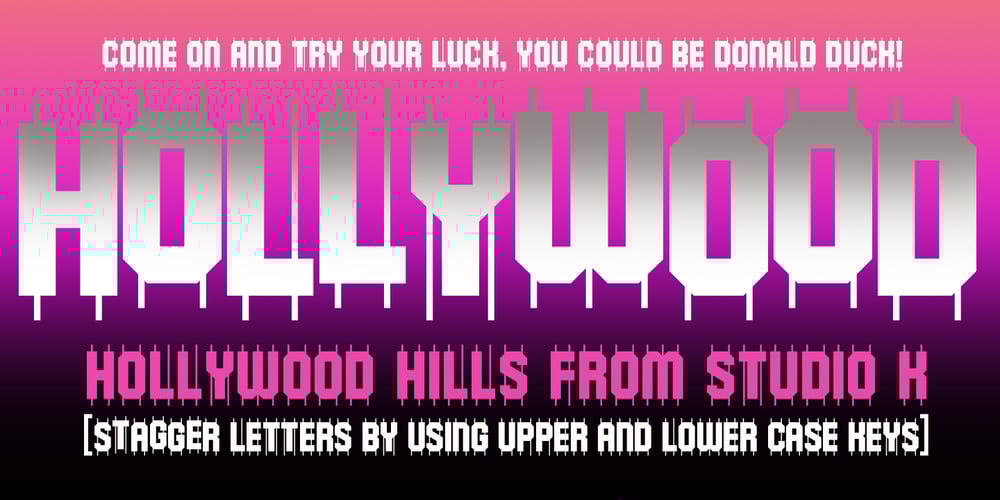
Hollywood Hills
Hollywood Hills font
Hollywood Hills Font Family was designed by Keith Tricker and published by Studio K. Hollywood Hills contains 1 styles and family package options. Inspired by that iconic sign in the Hollywood Hills, this font is a must for film buffs, movie lovers and designers who want to bring a bit of big screen glamour to their projects. It’s a caps only face, but by using the upper and lower case keys type can be set above or below the base line, thus creating the signature stagger effect. See also Jazz Age and Tea Dance by Studio K